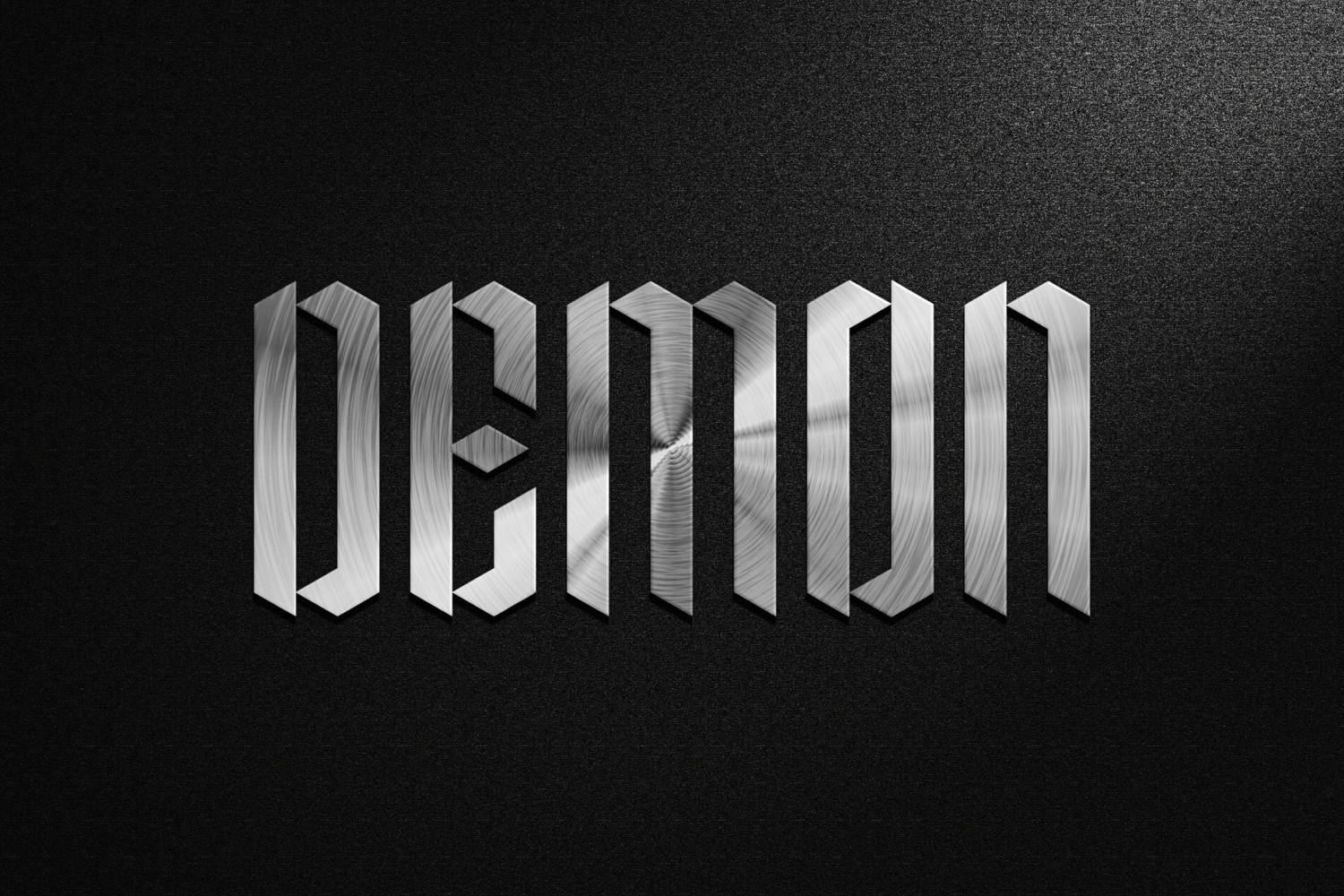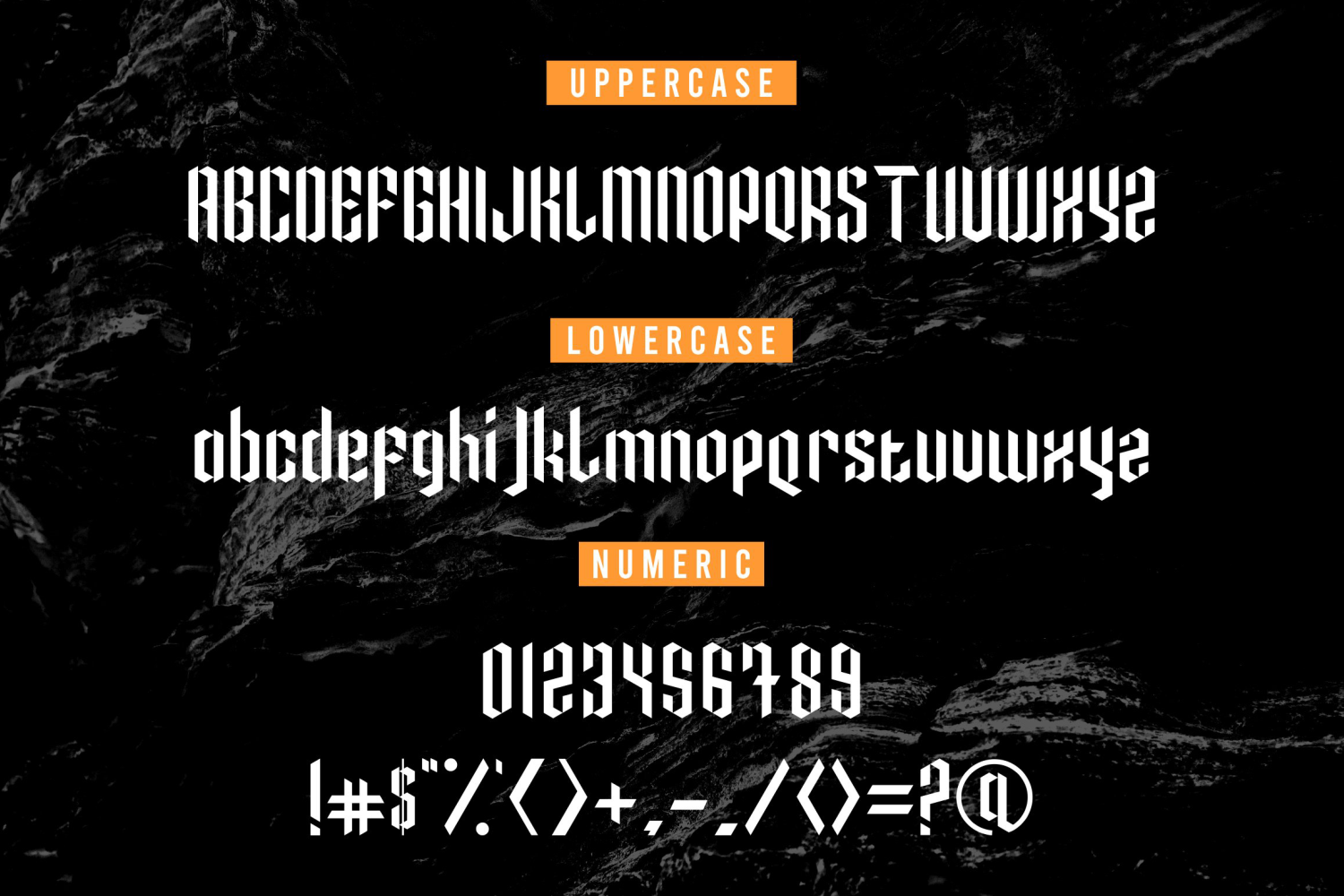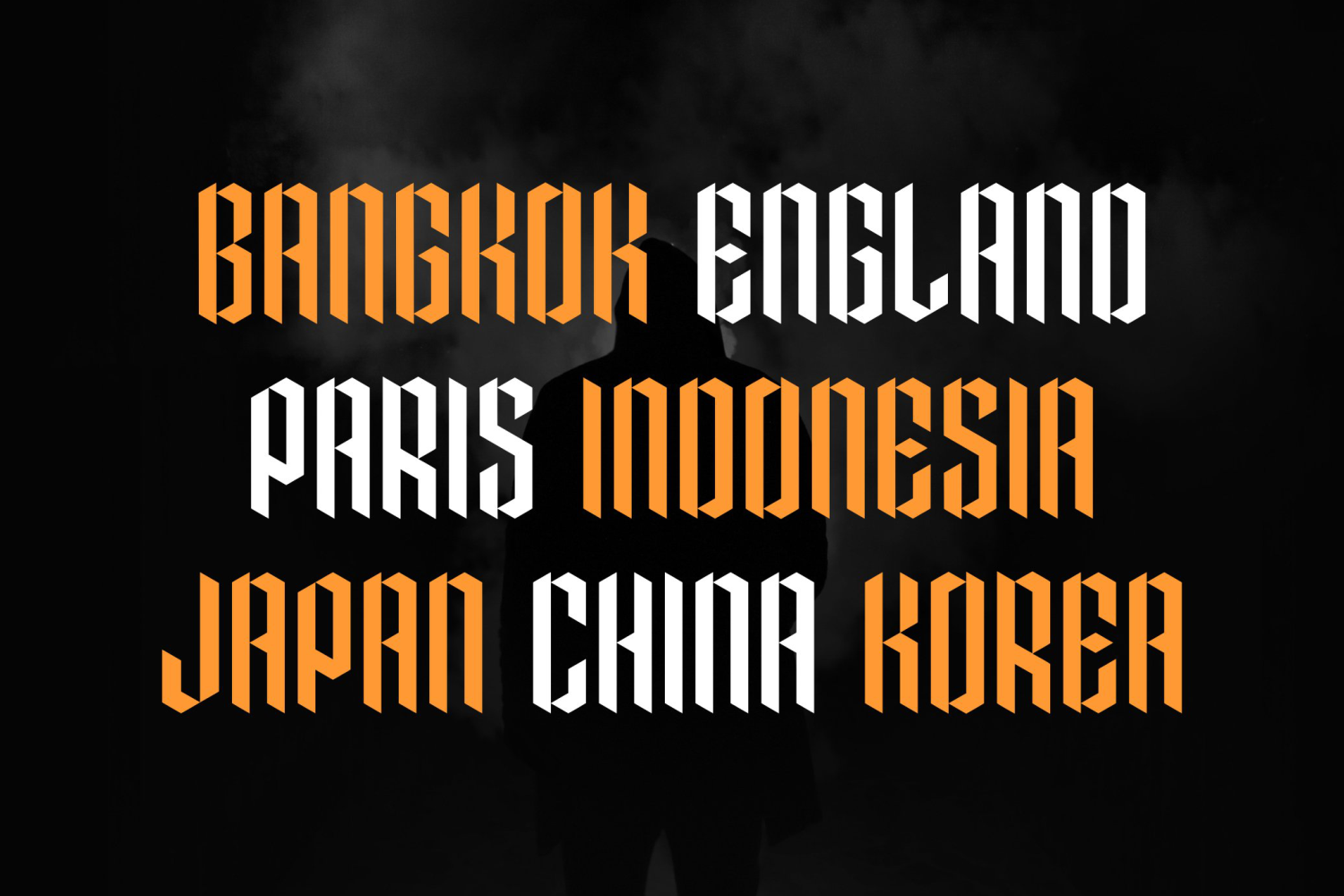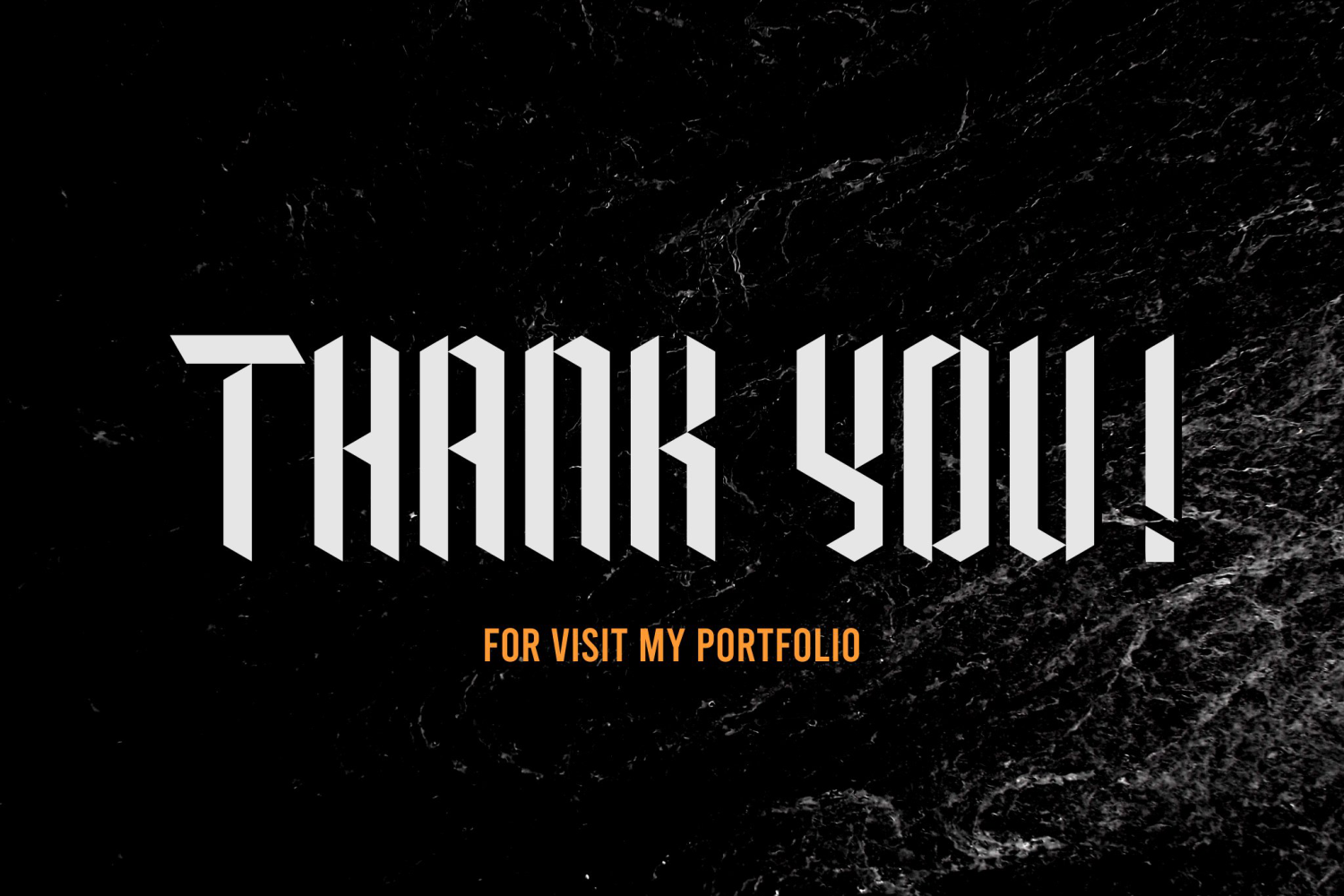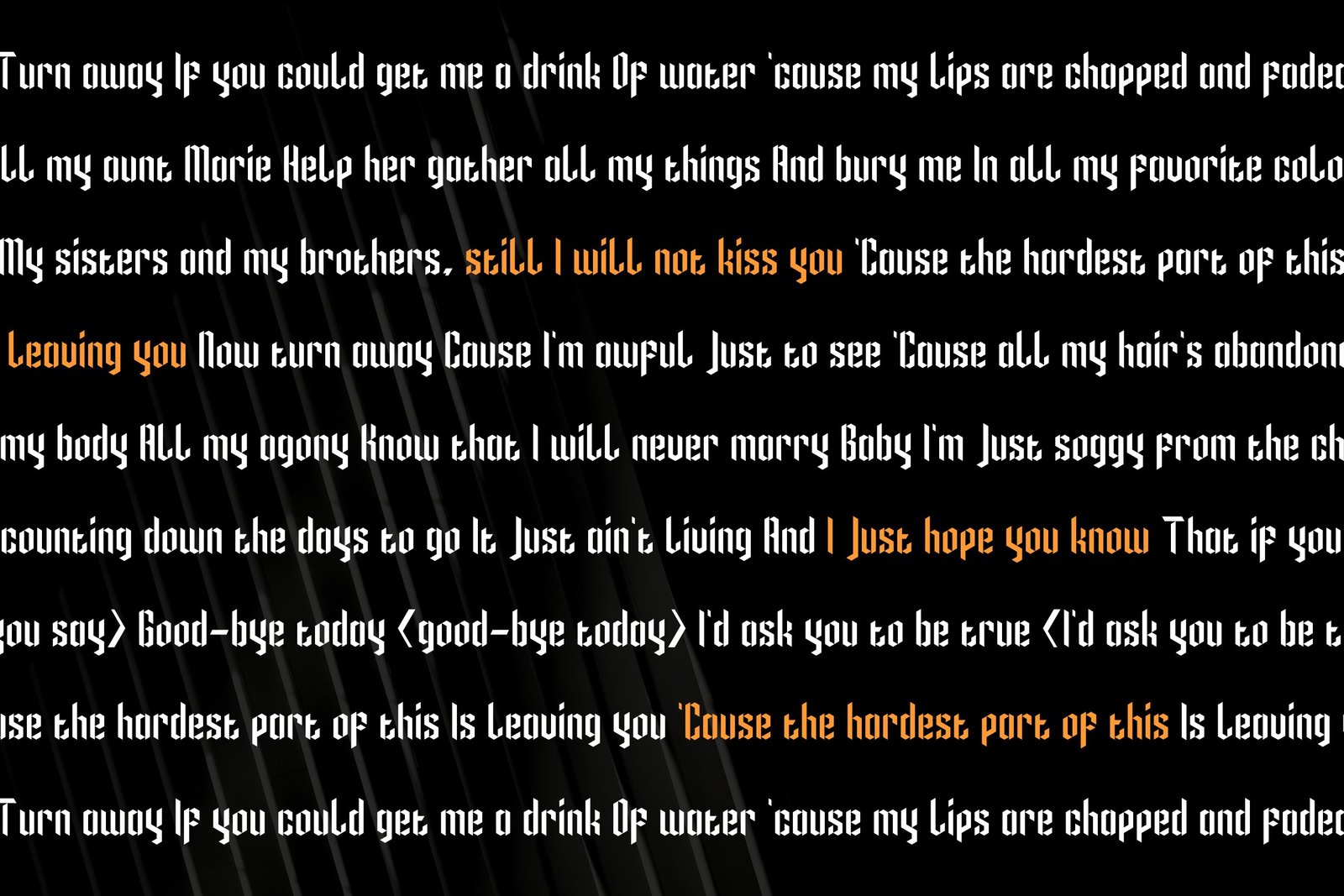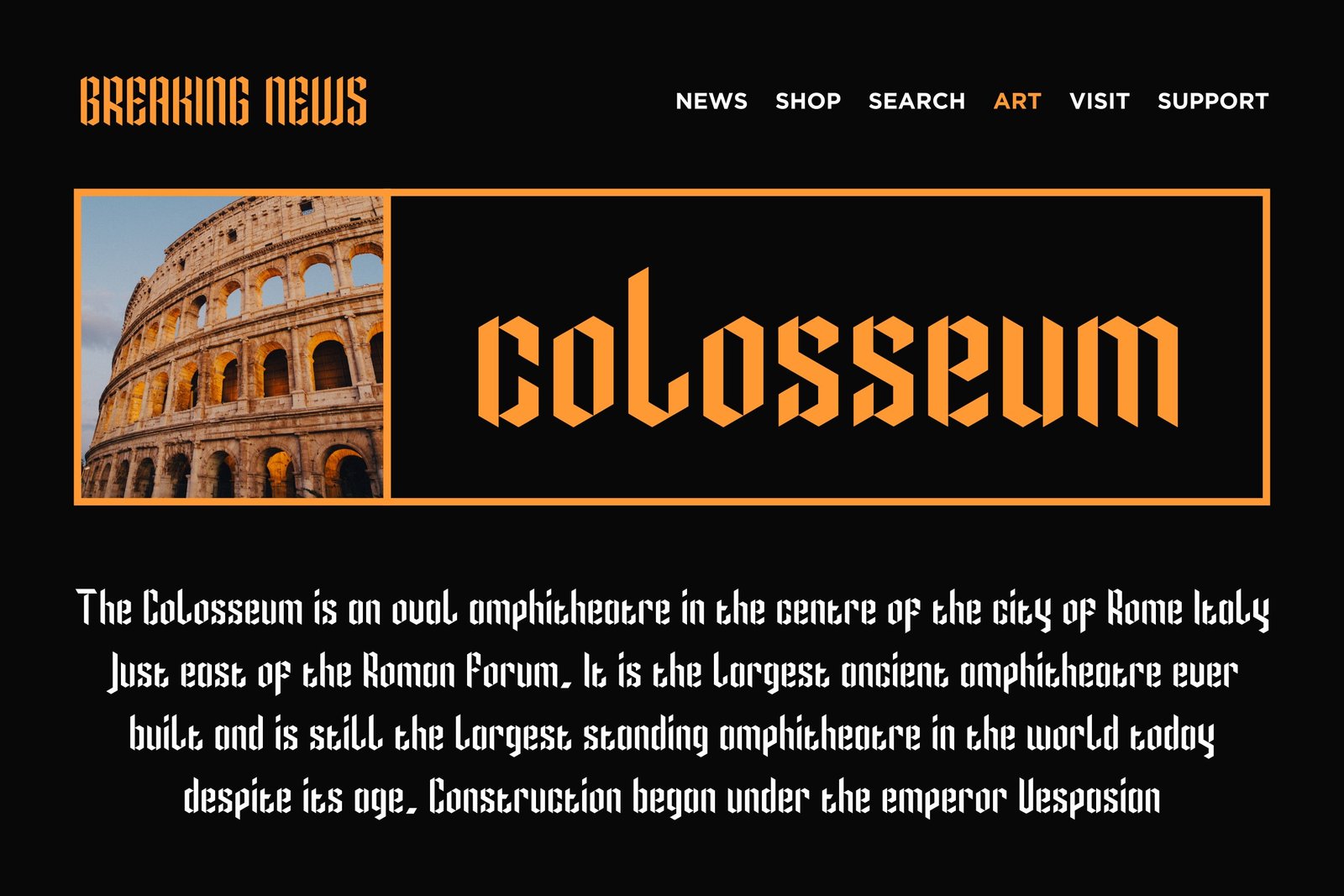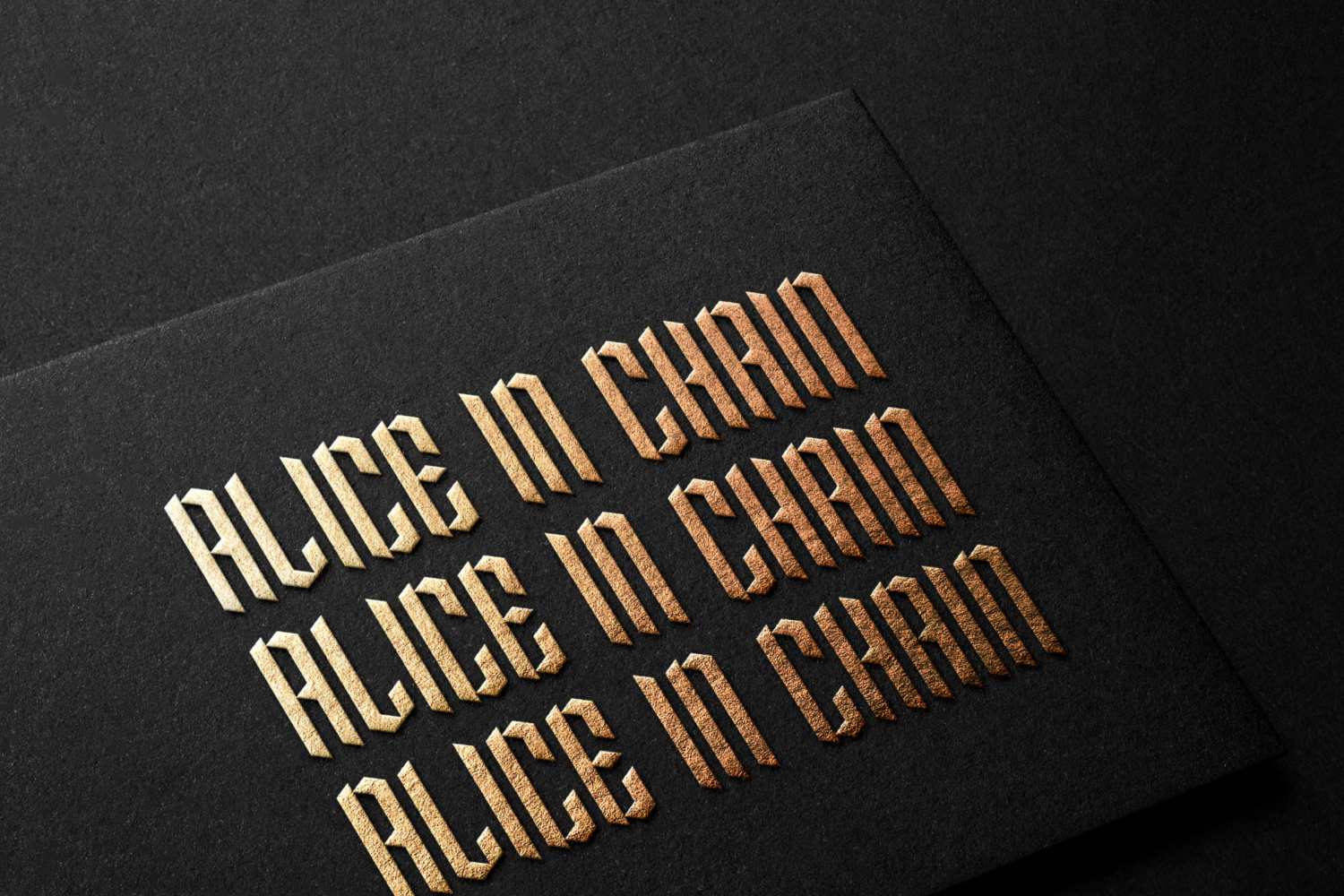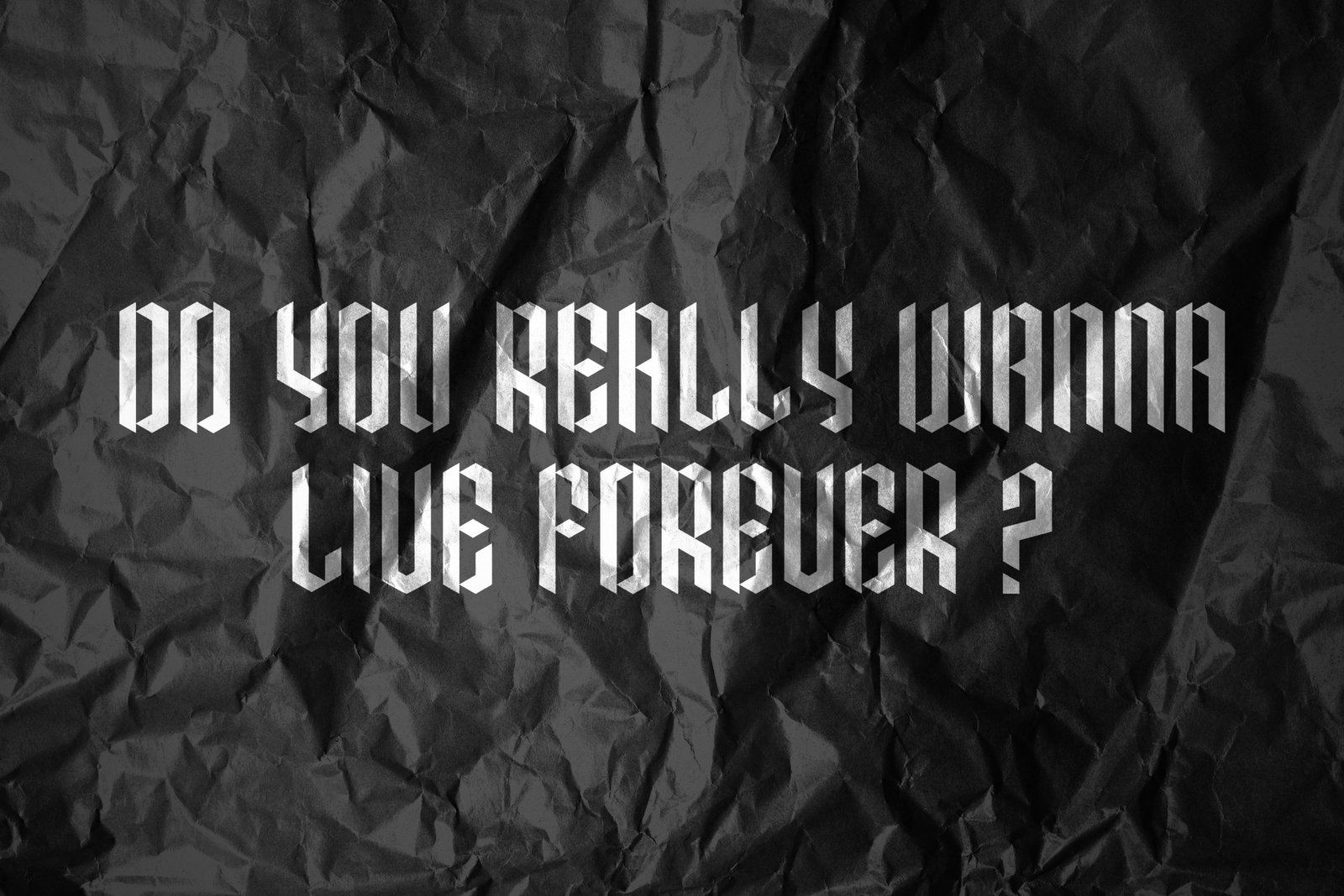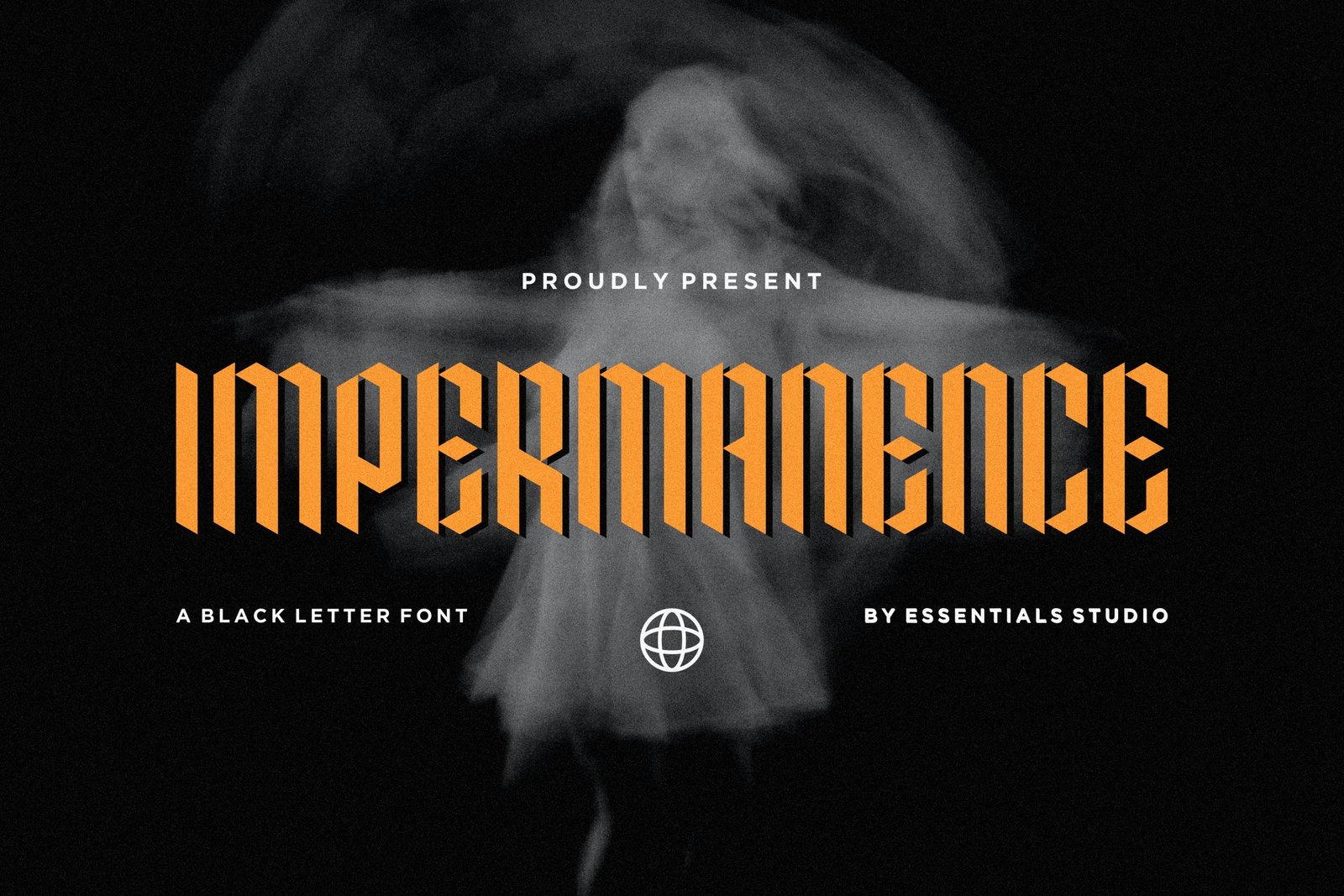
Impermanence - Black Letter Font
Impermanence is a bold and unique looking blackletter font. Whatever the topic, this font will be a wonderful asset to your font library, as it has the potential to enhance any creation.